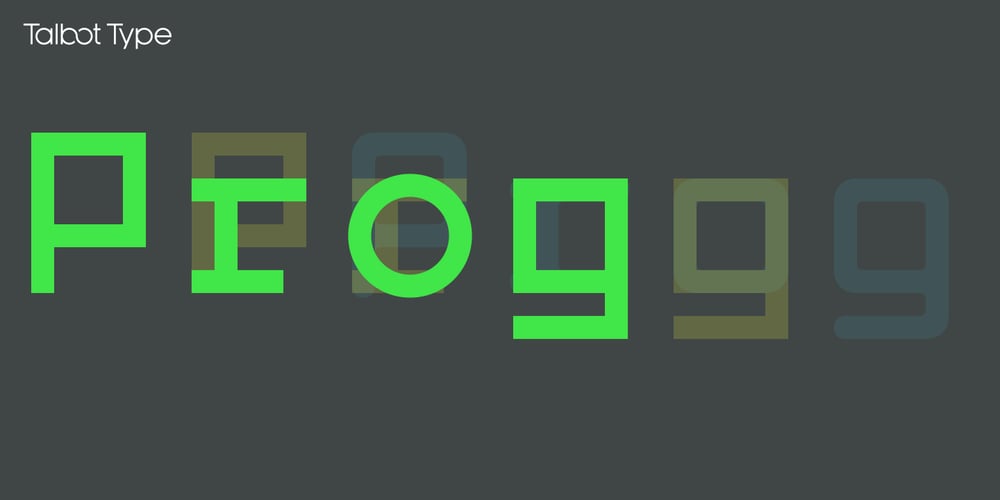
Prog Font Family was designed by Adrian Talbot and published by Talbot Type. Prog contains 3 styles and family package options. Prog is a modular font created on a five by nine square grid. The x-height, and consequently most of the lower case adheres to a five by five grid, with an additional two units above and two units below for capitals, ascenders and descenders. There are three versions of Prog available: Square (square-edged), Radius (round-edged) and Fusion which is essentially square but with round O’s, round punctuation and diagonal 45° X’s. The addition of a few disruptive characters makes quite a difference to the look of the font, it has a bit of a dangerous quality.A few characters, namely the M and W in both upper and lower case are granted a width of seven units to give them a more conventional look, however for the purists, a monospace version of the font also exists in all three styles, which demands that the M’s and W’s are restricted to a width of five units.All versions have full upper and lower case character sets and includes all accented characters for Western and Central European languages.